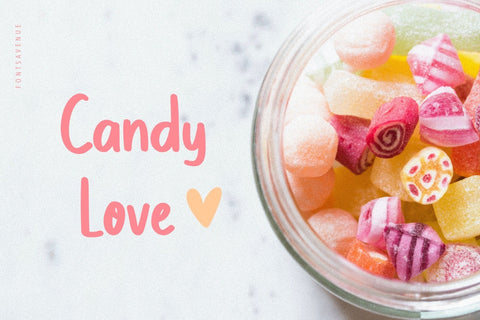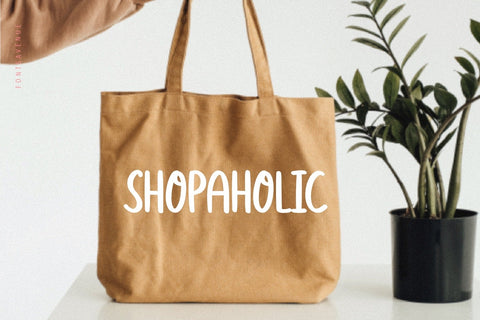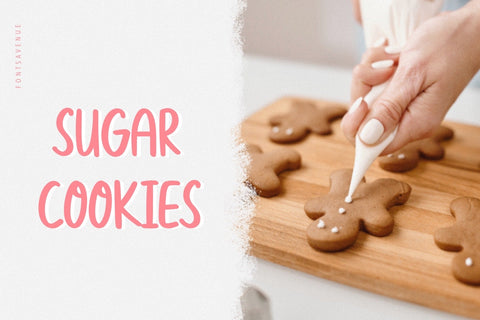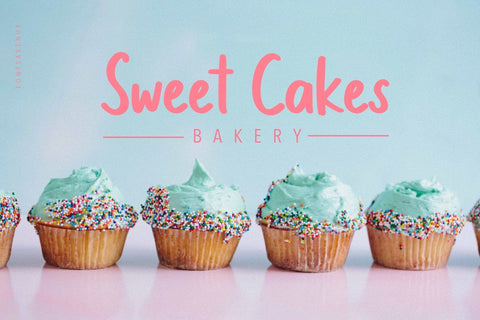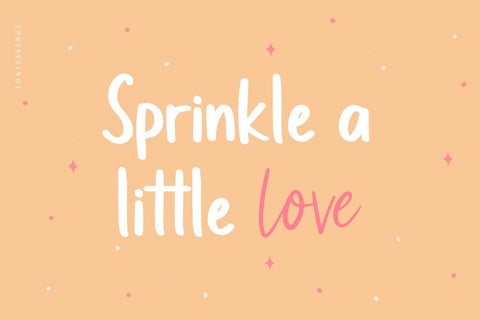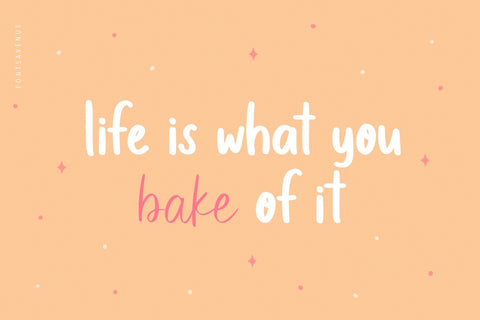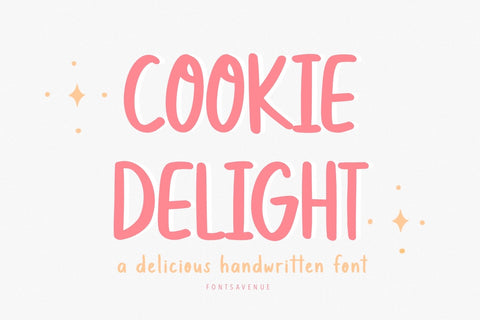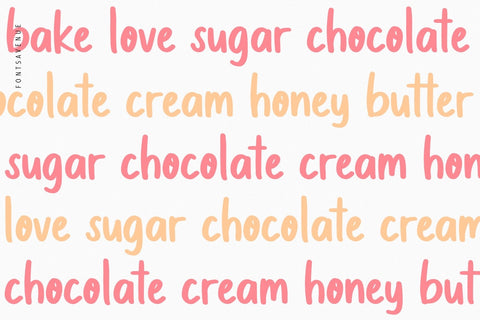
Cookie Delight | Cute Kids Sans Serif Font
Cookie Delight is a cute and delicious handwritten sans serif font, perfect for kids invitations, prints, stickers, quotes and much more!
- Uppercase and lowercase letters
- Accented characters